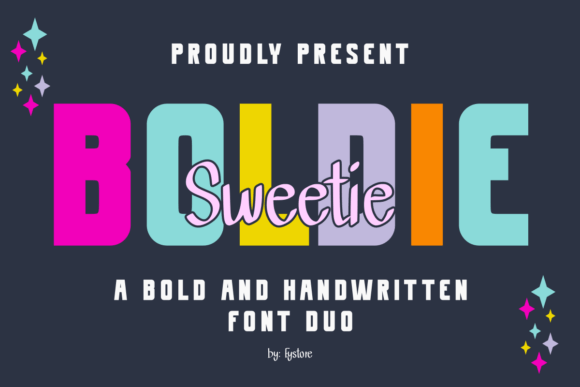
Introducing Boldie Regular Duo Font and Boldie Sweetie – A Playful Font Duo with Charm
In the world of typography, finding the perfect font duo that combines both style and charm can be a daunting task. However, if you’re looking for a pair that can add a cheerful, expressive personality to your projects, look no further than Boldie Regular Duo Font and Boldie Sweetie. This delightful font duo blends a chunky, bold display style with a whimsical handwritten script, making it perfect for a variety of creative endeavors.
What is Boldie Sweetie?
Boldie Sweetie is a font duo that consists of two complementary styles – a bold display font and a whimsical handwritten script. Designed with crafting in mind, this pair is ideal for adding a touch of warmth and eye-catching charm to your creations. Whether you’re designing quotes for tote bags, mugs, greeting cards, planner stickers, or DIY gifts, Boldie Sweetie is the perfect choice.
Key Features of Boldie Sweetie
- Bold Display Font: The bold display font grabs attention with its chunky, fun-loving shapes—perfect for headings and standout text.
- Whimsical Handwritten Script: The script font adds a personal, handwritten touch—great for accents, names, or secondary elements.
- Versatile Combo: Together, they form a harmonious and versatile combo that can be mixed and matched to create playful, engaging typography.
Why You’ll Love Boldie Sweetie
There are many reasons why Boldie Sweetie is a great addition to your font collection. Here are just a few:
- Easy to Read: The bold display font is easy to read, even at small sizes, making it perfect for a variety of applications.
- Highly Versatile: The font duo can be used for a wide range of projects, from crafting and DIY to digital and print.
- Unique and Eye-Catching: The combination of the bold display font and whimsical handwritten script creates a unique and eye-catching look that’s sure to stand out.
Uses for Boldie Sweetie
Boldie Sweetie is a versatile font duo that can be used for a wide range of projects, including:
- Crafting: Use Boldie Sweetie to add a personal touch to your crafting projects, such as scrapbooking, card making, and DIY gifts.
- Digital Design: The font duo is perfect for digital design, including social media graphics, blog posts, and website headers.
- Print Design: Use Boldie Sweetie for print design, including brochures, flyers, and posters.
Tips for Using Boldie Sweetie
Here are a few tips for getting the most out of Boldie Sweetie:
- Mix and Match: Experiment with mixing and matching the bold display font and whimsical handwritten script to create a unique look.
- Use for Headings and Accents: Use the bold display font for headings and standout text, and the script font for accents and secondary elements.
- Experiment with Colors: Try out different color combinations to add an extra layer of personality to your designs.
Boldie Regular Duo Font
Boldie Regular Duo Font is a font duo that consists of two complementary styles – a bold display font and a regular font. This pair is perfect for adding a touch of style and sophistication to your creations.
Key Features of Boldie Regular Duo Font
- Bold Display Font: The bold display font grabs attention with its chunky, fun-loving shapes—perfect for headings and standout text.
- Regular Font: The regular font adds a touch of style and sophistication, making it perfect for body text and secondary elements.
- Versatile Combo: Together, they form a harmonious and versatile combo that can be mixed and matched to create engaging typography.
Why You’ll Love Boldie Regular Duo Font
There are many reasons why Boldie Regular Duo Font is a great addition to your font collection. Here are just a few:
- Easy to Read: The regular font is easy to read, even at small sizes, making it perfect for a variety of applications.
- Highly Versatile: The font duo can be used for a wide range of projects, from digital and print to crafting and DIY.
- Unique and Eye-Catching: The combination of the bold display font and regular font creates a unique and eye-catching look that’s sure to stand out.
Uses for Boldie Regular Duo Font
Boldie Regular Duo Font is a versatile font duo that can be used for a wide range of projects, including:
- Digital Design: The font duo is perfect for digital design, including social media graphics, blog posts, and website headers.
- Print Design: Use Boldie Regular Duo Font for print design, including brochures, flyers, and posters.
- Crafting: Use Boldie Regular Duo Font to add a personal touch to your crafting projects, such as scrapbooking, card making, and DIY gifts.
Tips for Using Boldie Regular Duo Font
Here are a few tips for getting the most out of Boldie Regular Duo Font:
- Mix and Match: Experiment with mixing and matching the bold display font and regular font to create a unique look.